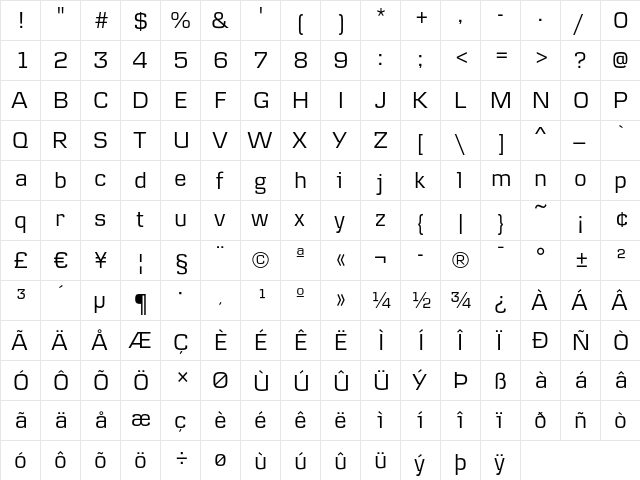
DanskeText [BETA] Medium
Design Context for DanskeText [BETA] Typeface
DanskeText [BETA] takes a measured approach to typography — its balanced proportions and neutral character make it a reliable workhorse for both digital and print work.